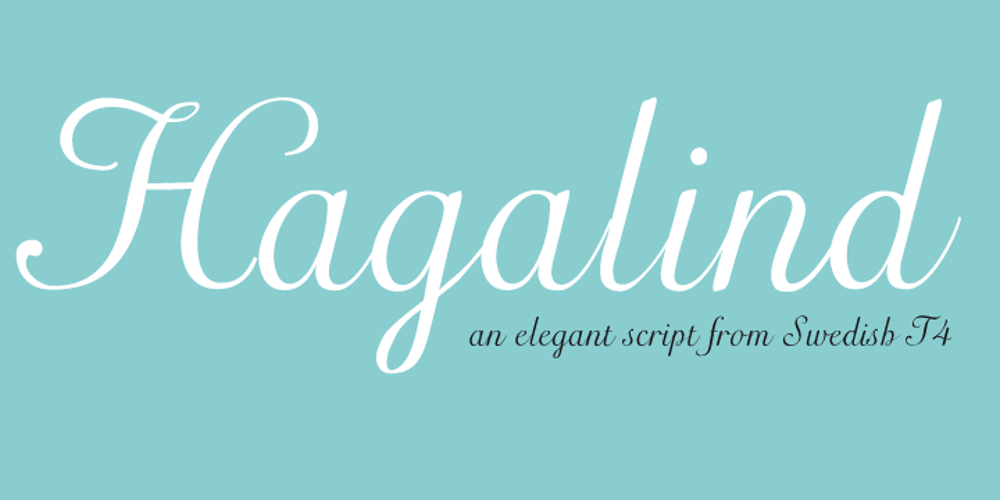
Hagalind Font Family was designed by Bo Berndal and published by T4 Foundry. Hagalind contains 1 styles and family package options. Hagalind is a beautiful new script with a natural flow from Swedish type designer Bo Berndal and the T4 font foundry. Hagalind is elegant and friendly with ligature style capital letters, inspired by 18th century writing. The name comes from Swedish national poet Carl Michael Bellman and his songs about the Haga castle in Stockholm and its beautiful surroundings. It is an OpenType creation, for both PC and Mac.